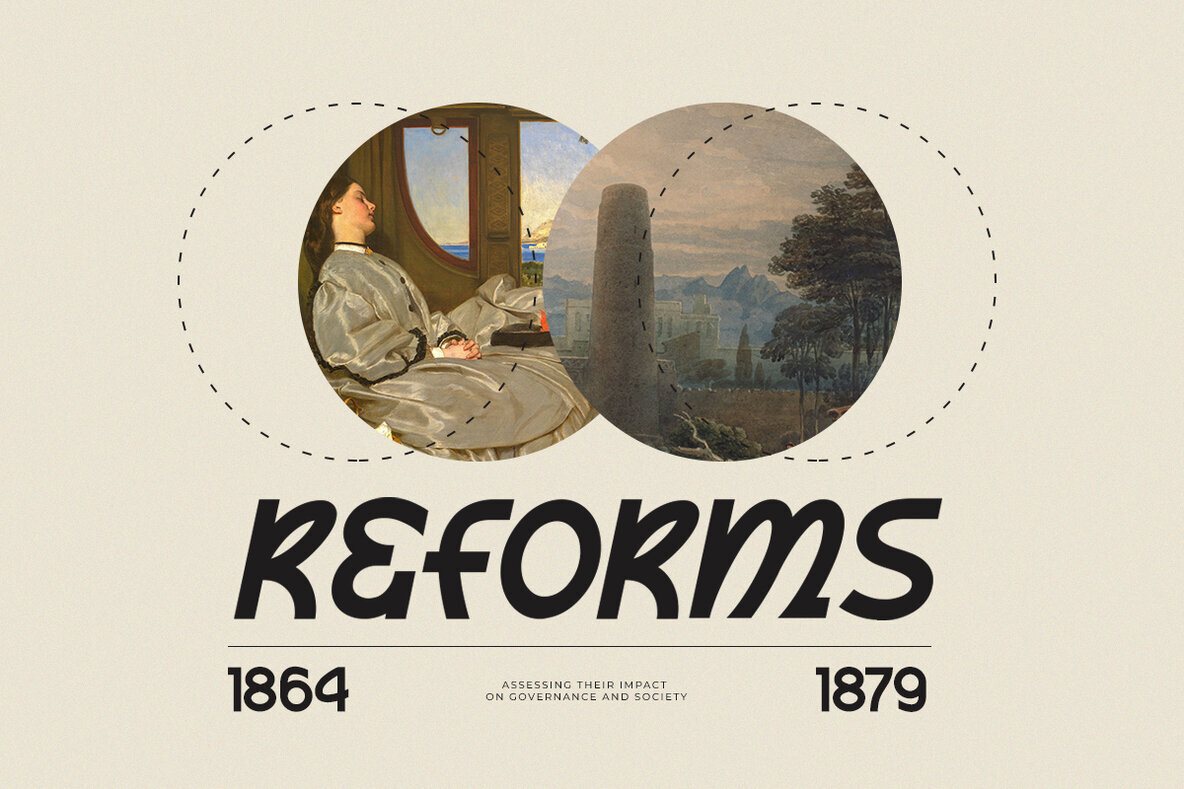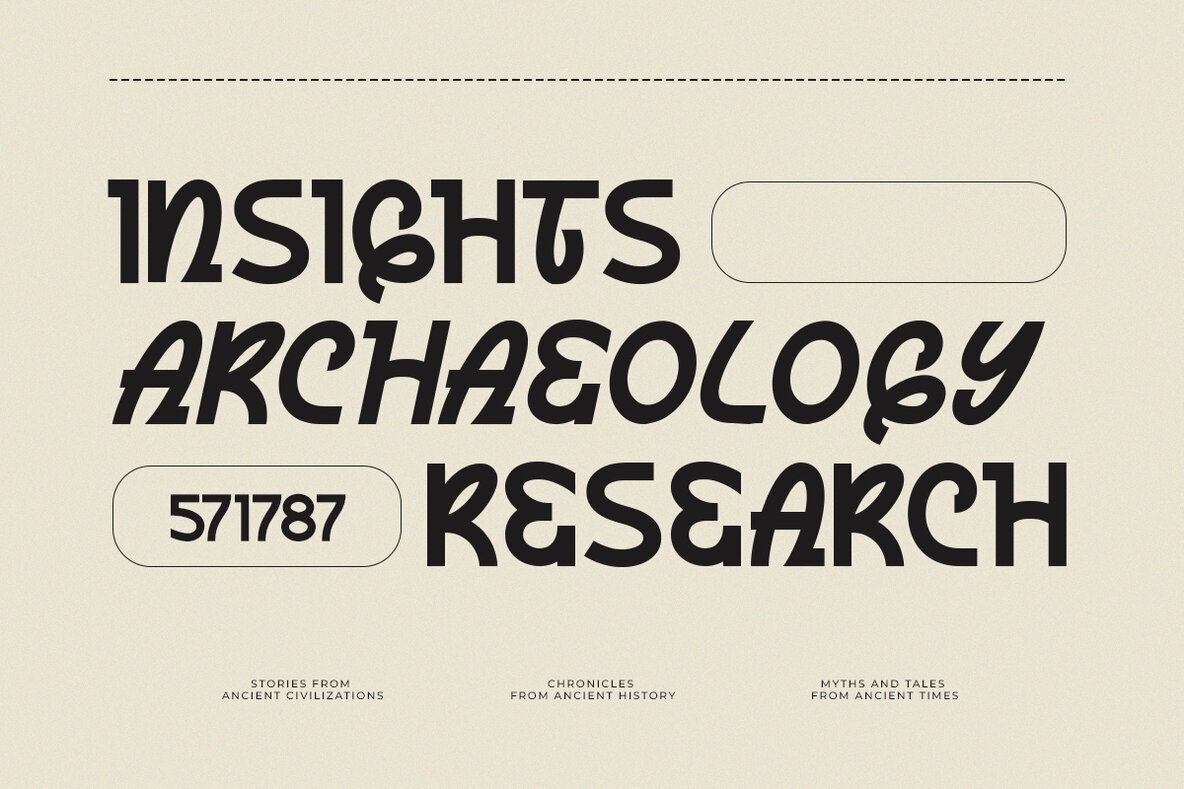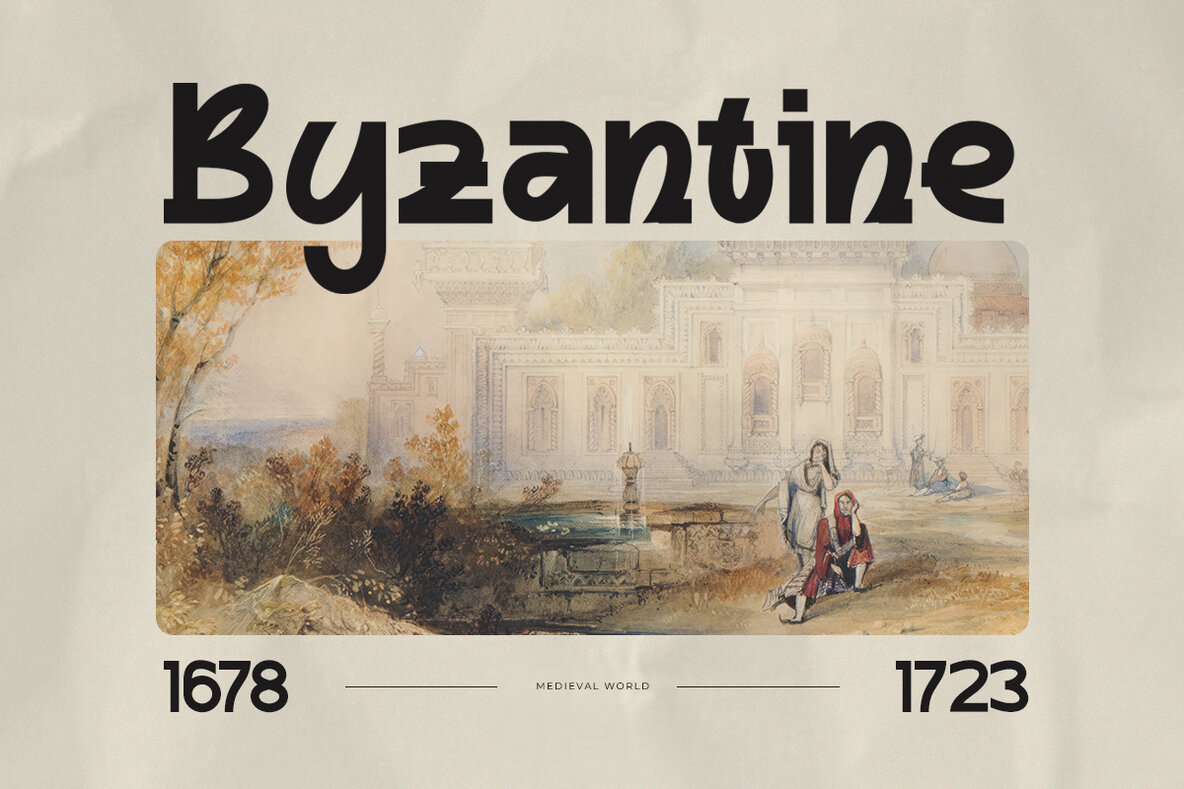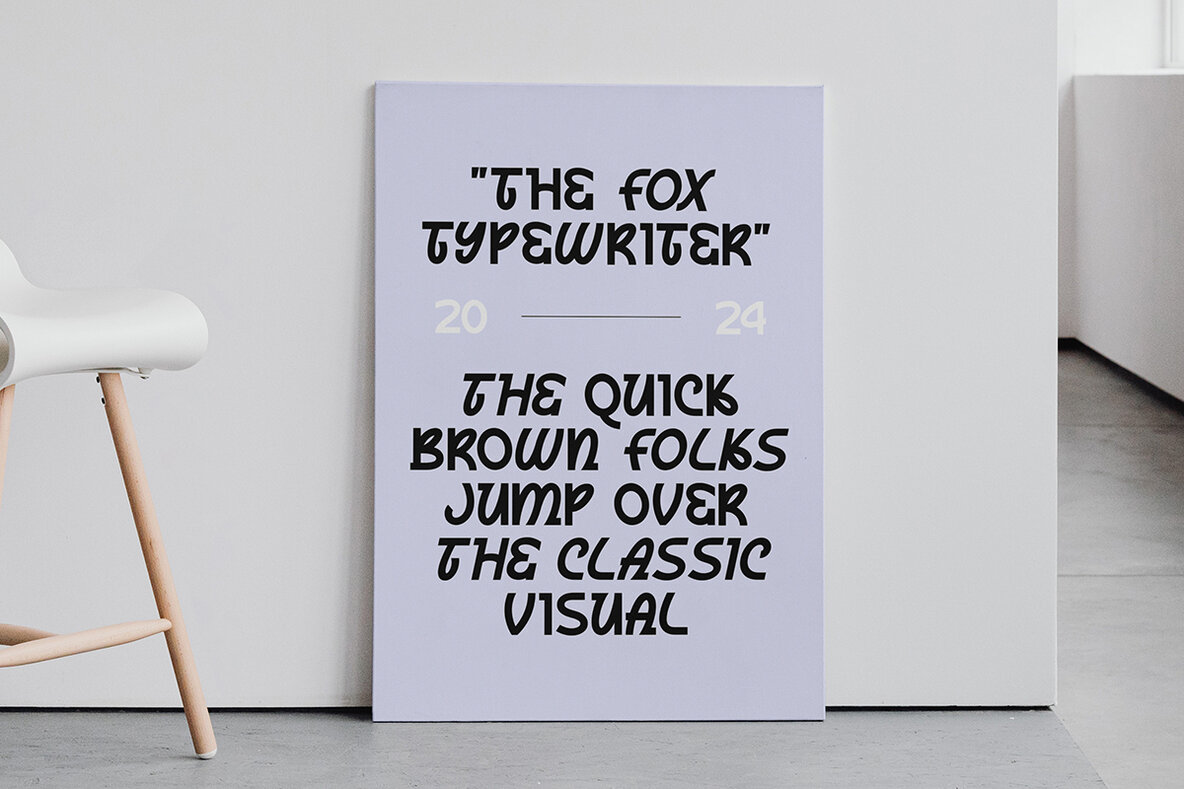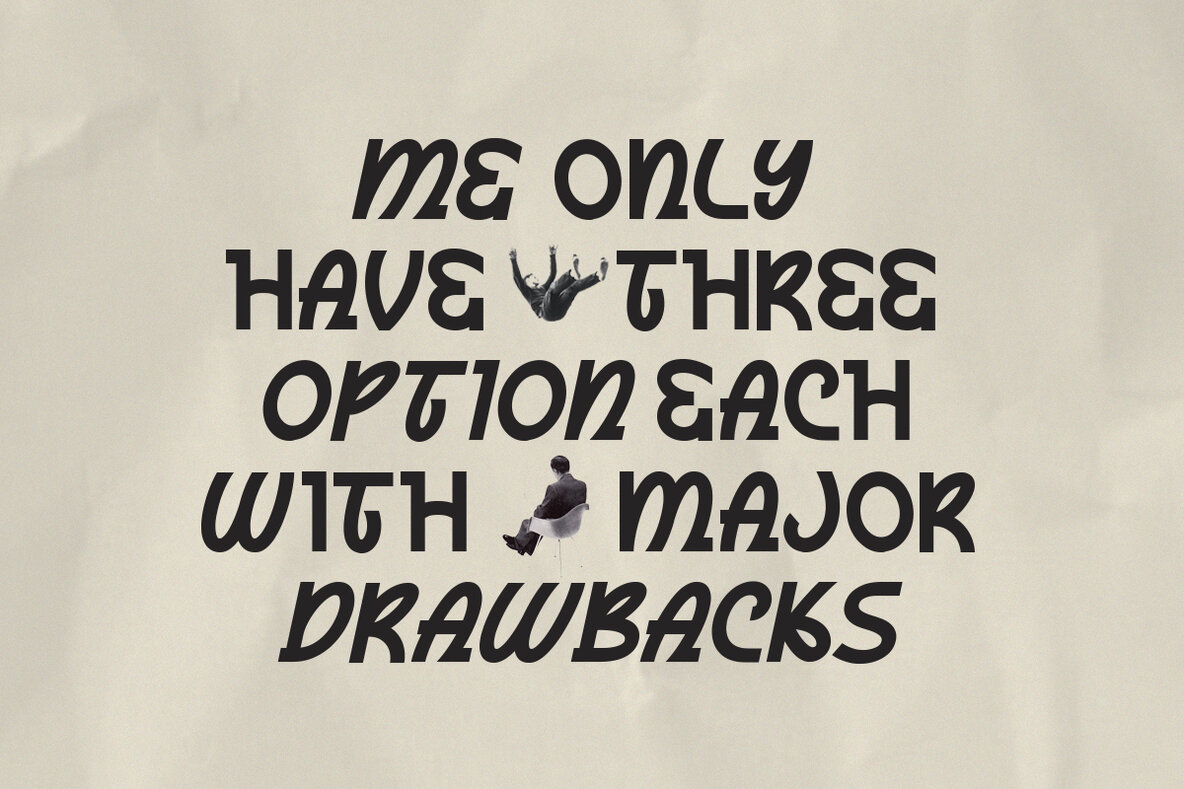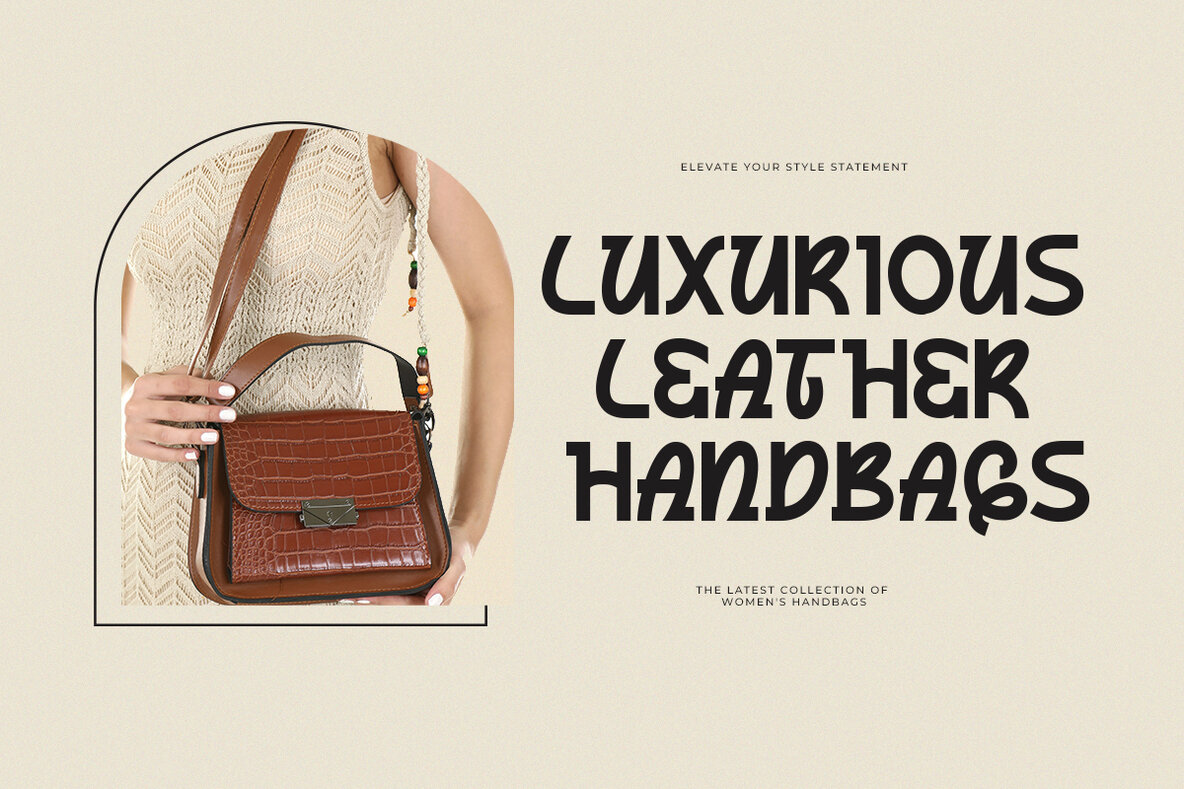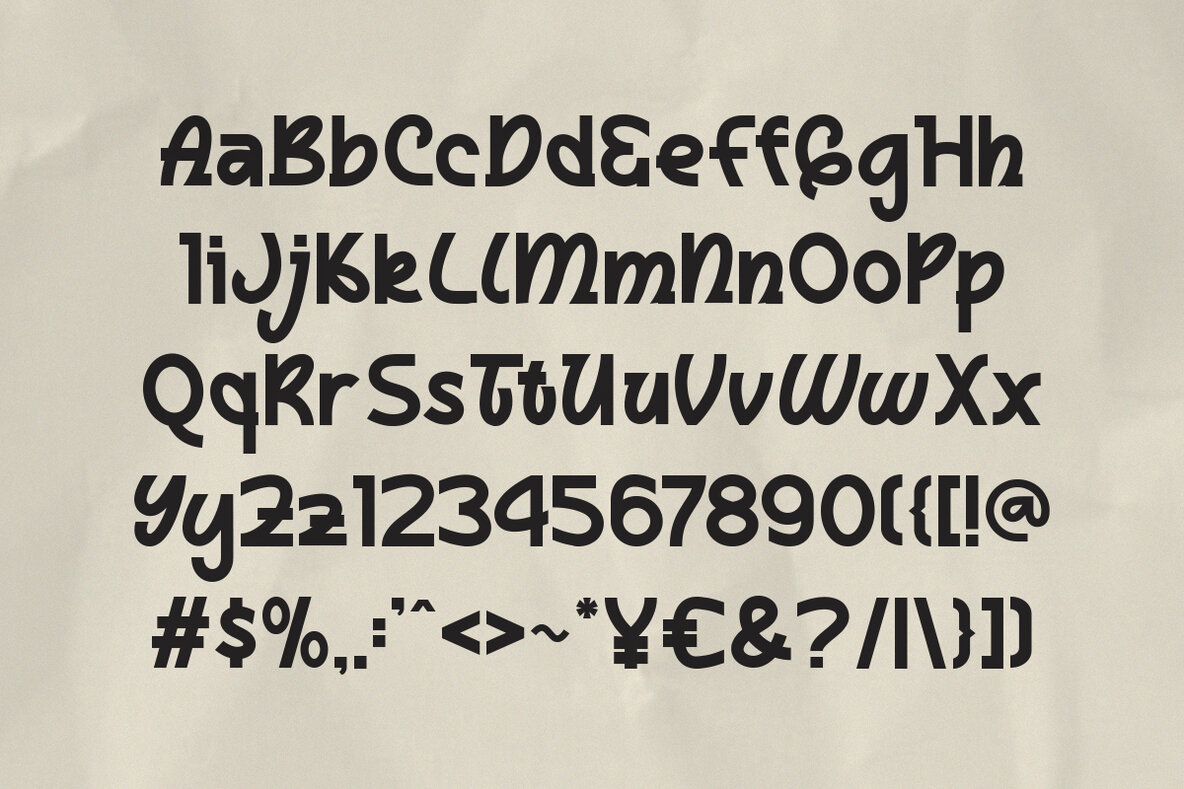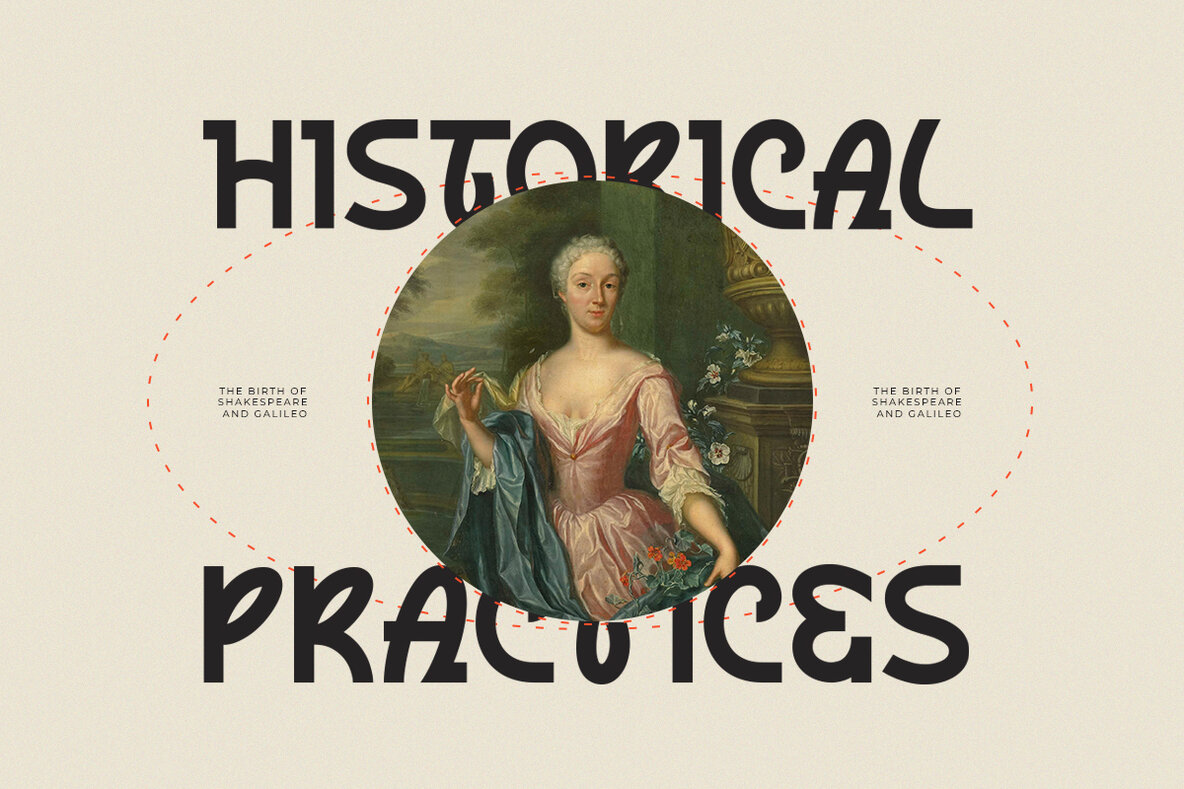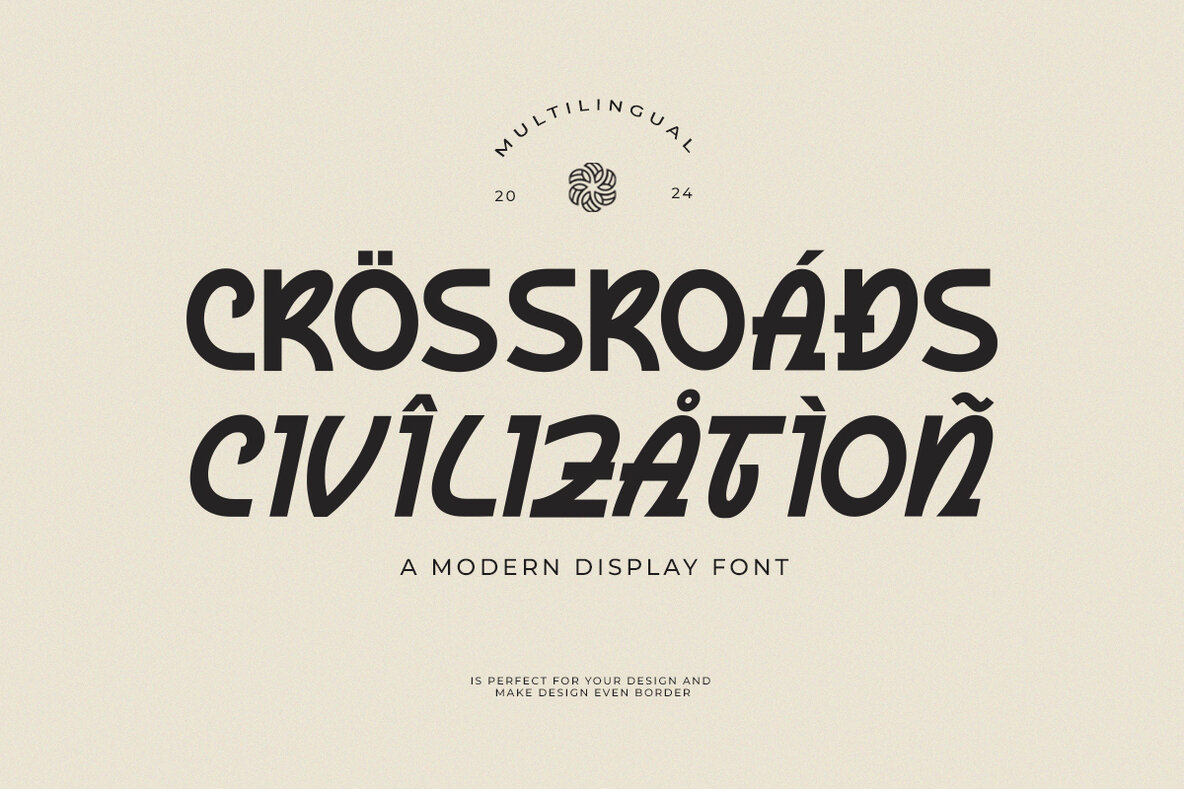
Doremia Font
Doremia is a modern display font that captures a fun and experimental style. Designed with a strong, gestural appearance, it blends a constructive feel with cursive elements. Ideal for a variety of design projects, Doremia can enhance the visual appeal of logos, headlines, book covers, magazines, and more.
With its unique blend of modern and experimental aesthetics, Doremia is perfect for designers looking to add a distinctive touch to their work. Its versatility makes it a go-to choice for creating eye-catching designs that stand out in any medium.